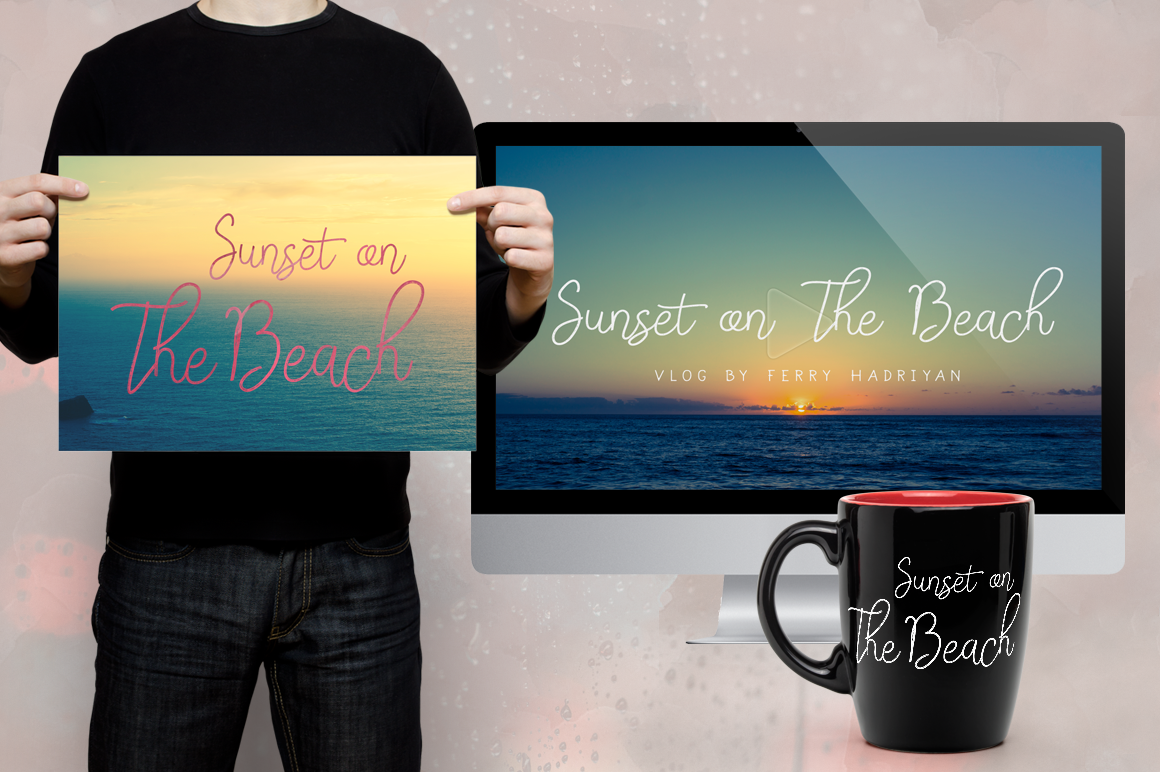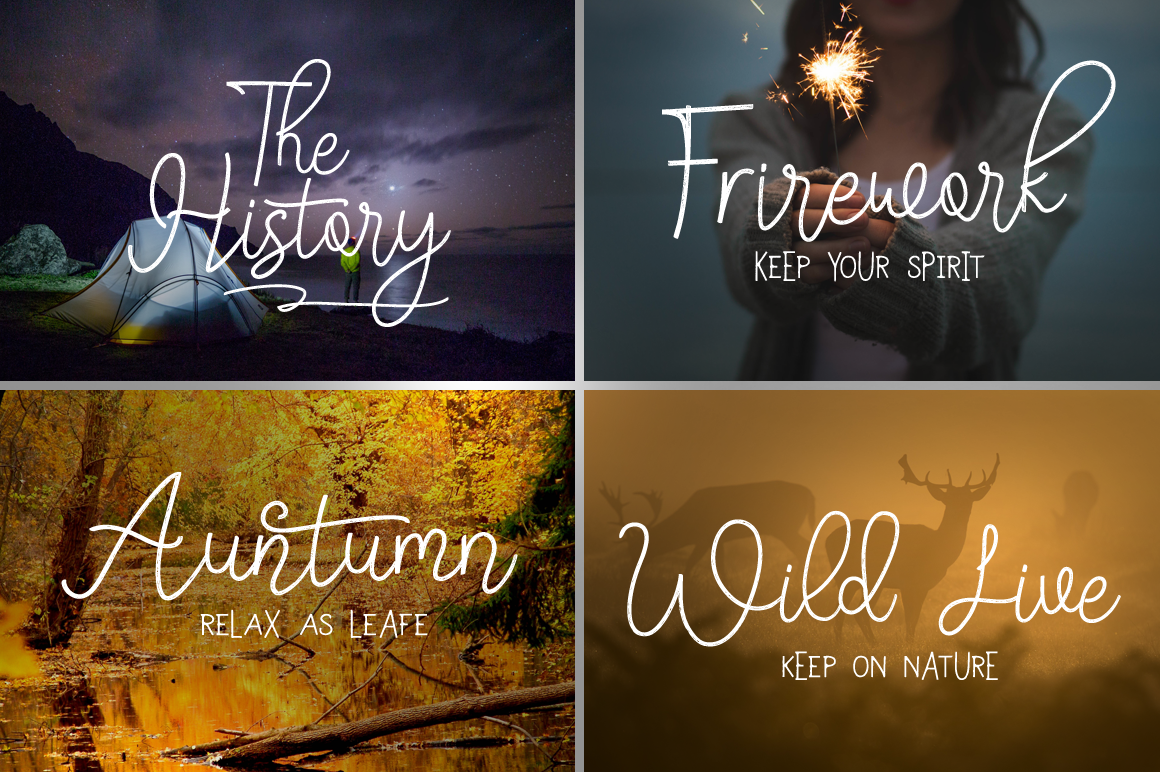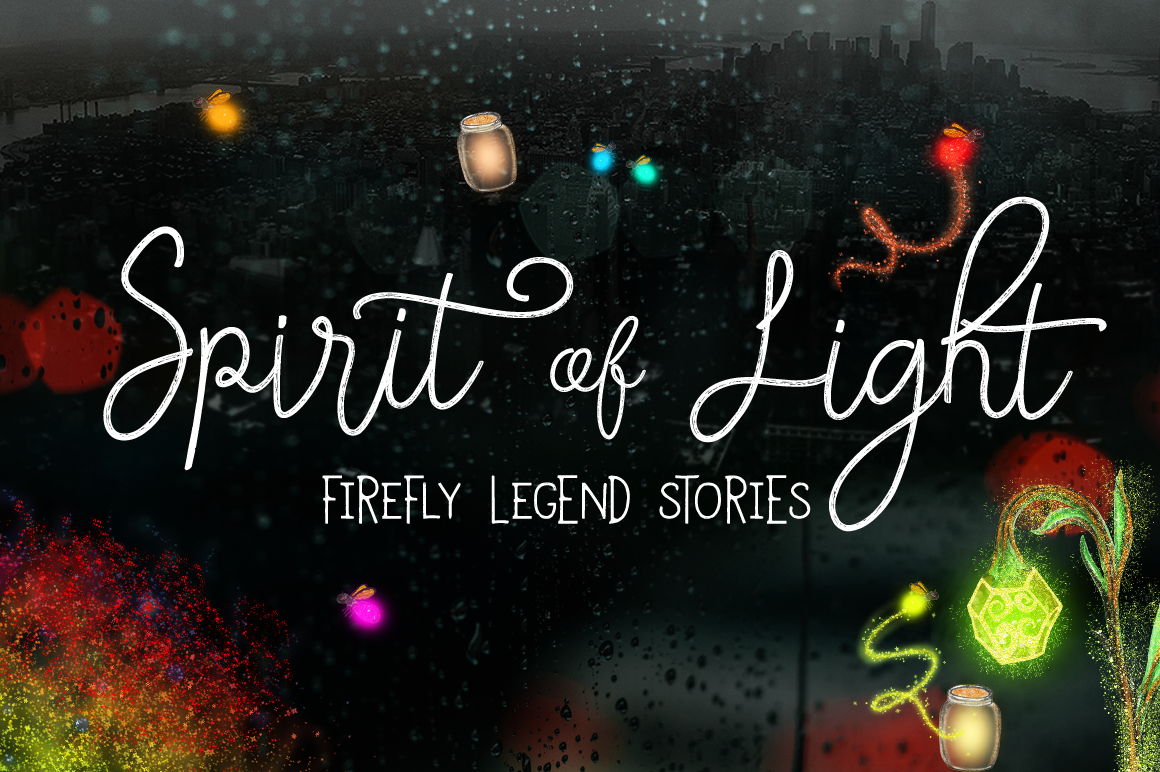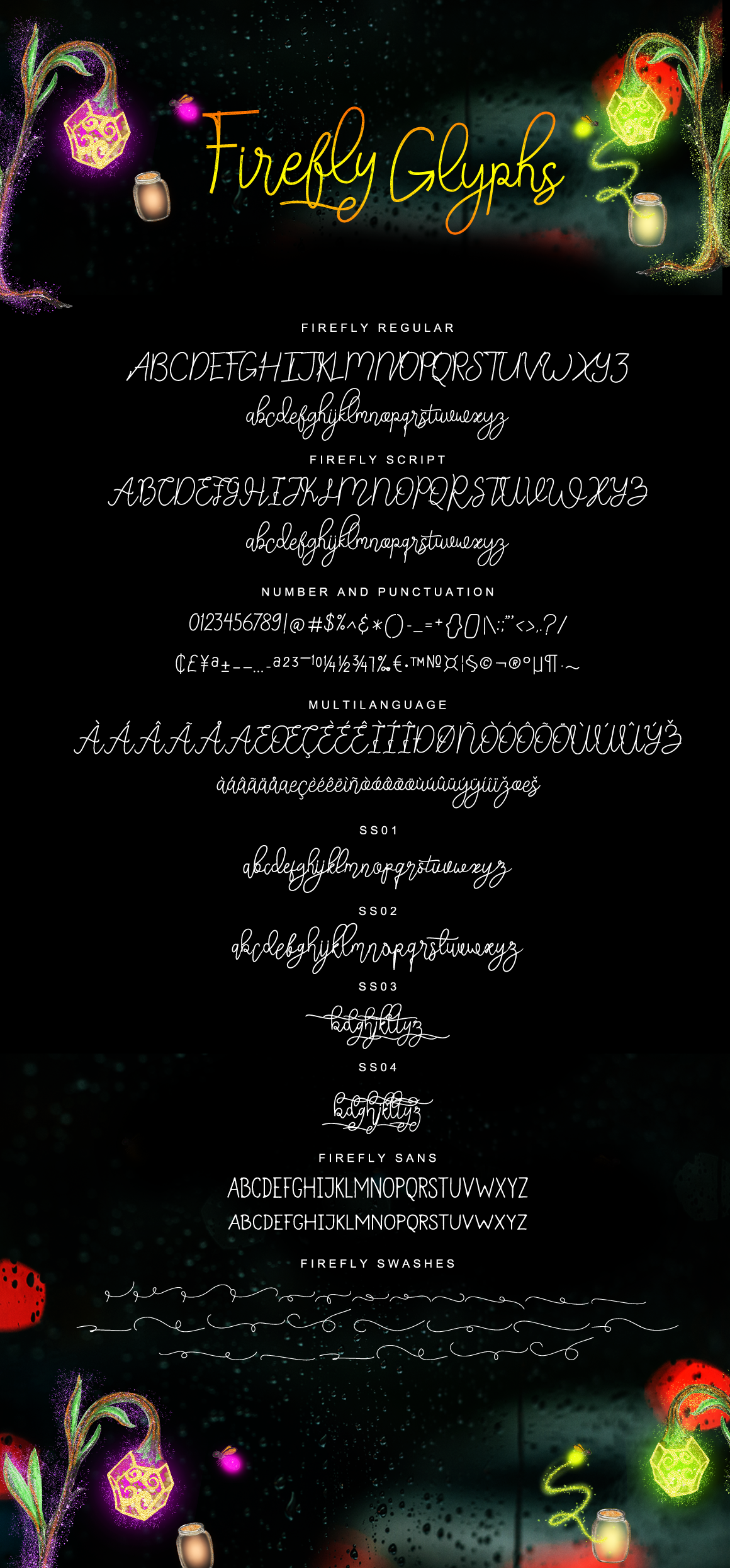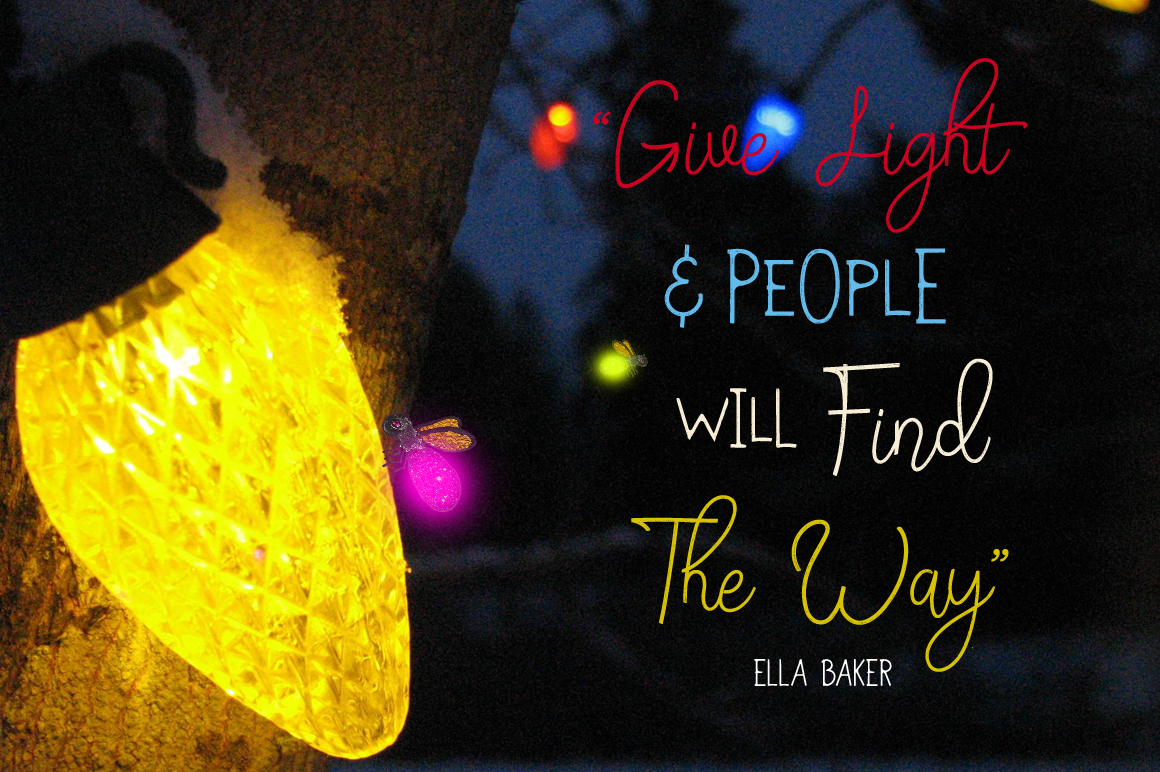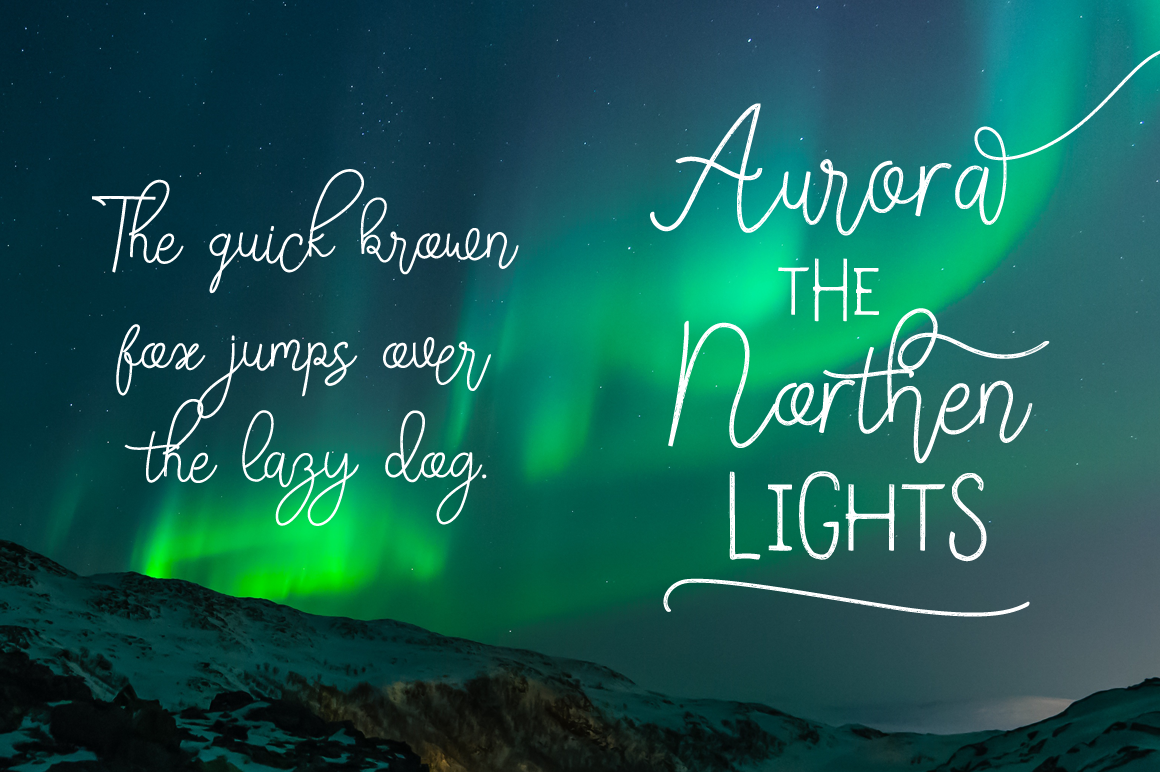
Firefly Font: A Whimsical Script Font for Your Design Needs
Are you looking for a font that captures the essence of childhood summer nights, filled with memories of chasing fireflies and spending evenings outdoors? Look no further than the Firefly Font, a beautiful and charming script font that will add a textured and genuine feel to your designs.
What is Firefly Font?
Firefly is a carefully crafted font that evokes a sense of nostalgia and playfulness. This handwritten script font is designed to give your designs a personal touch, reminiscent of a bygone era. With its unique and charming lettering, Firefly Font is perfect for a variety of design projects, from wedding invitations and branding materials to social media graphics and craft projects.
Key Features of Firefly Font
- Handwritten script font: Firefly Font is a genuine handwritten font, giving it a personal and textured feel that’s perfect for designs that require a human touch.
- Beautiful and charming lettering: The font features beautiful and charming lettering that’s sure to capture the attention of your audience.
- Perfect for a variety of design projects: Firefly Font is versatile and can be used for a range of design projects, from formal to informal.
- Easy to read and understand: Despite its playful and whimsical nature, Firefly Font is easy to read and understand, making it perfect for body text and headings.
Who is Firefly Font for?
Firefly Font is perfect for designers, crafters, and anyone looking to add a personal touch to their designs. Whether you’re a:
- Graphic designer: looking for a unique font to add to your design portfolio.
- Crafter: creating handmade products, such as wedding invitations, cards, and other paper crafts.
- Small business owner: looking for a font that will help you stand out from the competition.
- Wedding invitations and stationery: Add a touch of whimsy and romance to your wedding invitations and stationery.
- Branding materials: Use Firefly Font to create unique and memorable branding materials, such as logos and business cards.
- Social media graphics: Add a personal touch to your social media graphics, such as Facebook posts and Instagram stories.
- Craft projects: Use Firefly Font to add a personal touch to your craft projects, such as handmade cards and gift tags.
Tips for Pairing Firefly Font
Firefly Font can be paired with a variety of fonts to create a unique and visually appealing design. Here are a few tips for pairing Firefly Font:
- Pair with a sans-serif font: Pair Firefly Font with a sans-serif font, such as Arial or Helvetica, to create a clean and modern look.
- Pair with a serif font: Pair Firefly Font with a serif font, such as Times New Roman or Georgia, to create a more traditional and elegant look.
- Experiment with font sizes: Experiment with different font sizes to create visual interest and hierarchy in your design.
Firefly Font is a beautiful and charming script font that’s perfect for designers and crafters looking to add a personal touch to their designs. With its unique and handwritten lettering, Firefly Font is sure to capture the attention of your audience and evoke memories of childhood summer nights. So why wait? Download Firefly Font today and start creating unique and memorable designs!